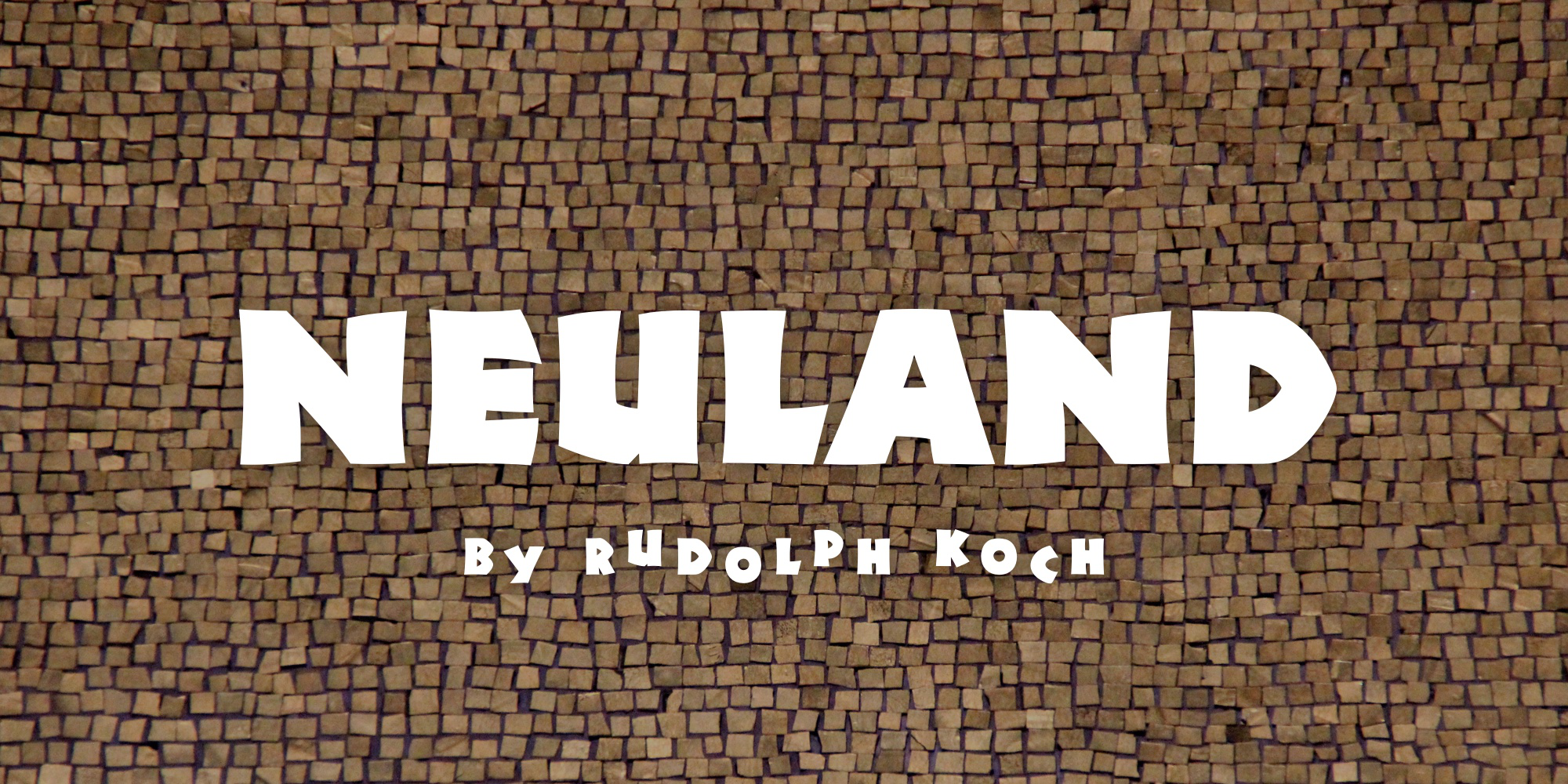
The Neuland Font is ideal for bold artistic design projects including adventure movie posters, tribal-themed branding, primitive art exhibitions, archaeological museum displays, anthropological publications, cultural heritage materials, outdoor expedition logos, and authentic ethnic craft presentations. This distinctive typeface brings raw artistic expression and primitive cultural authenticity to any design project celebrating ancient traditions and bold artistic movements.
What makes Neuland Font so exciting is its powerful hand-carved appearance that captures the essence of primitive art and ancient cultural expression with bold, sculptural letterforms. The letters feature rough, chiseled characteristics with strong tribal influences that create an immediate sense of authenticity and primal artistic energy. This distinctive primitive character makes it perfect for projects that want to communicate cultural heritage, artistic boldness, and the timeless appeal of ancient craftsmanship traditions.
The Neuland Font family typically includes regular weight with hand-carved variations, often featuring tribal symbols and primitive decorative elements. Many versions include cultural ornaments, archaeological-inspired glyphs, and ethnic design elements that enhance its authenticity for anthropological and cultural applications.
Whether you're designing for museums, cultural organizations, or adventure brands, Neuland Font Free Download provides the perfect solution for projects that need to convey primitive artistic power and cultural authenticity. This font transforms standard text into bold tribal designs that immediately communicate ancient wisdom, cultural heritage, and the enduring strength of primitive artistic expression to audiences appreciating anthropological significance and authentic cultural traditions.